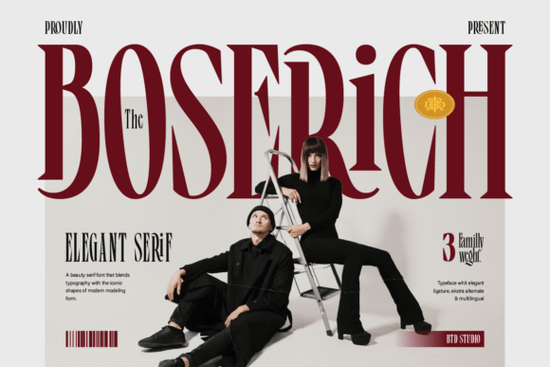
If you are working on a project that needs a touch of high-end elegance, the Boserich Font is a typeface worth exploring. This modern serif was created to bring a luxurious, editorial feel to your work. Whether you are designing a beauty brand logo, laying out a fashion magazine, or creating wedding invitations, this font gives your text a sophisticated personality without sacrificing readability.
What makes this serif typeface stand out for luxury branding?
When you are building a brand identity for a beauty, skincare, or fashion line, the small details matter. This typeface blends a classic serif structure with stylish, modern touches inspired by contemporary fashion aesthetics. The high contrast strokes and refined curves create a strong visual presence on the page or screen. You will also notice distinctive ligatures and unique character shapes, particularly in letters like A, g, and R. These subtle design choices add a custom, hand-crafted feel to your text, helping your brand stand out in a crowded market.
How many weights and styles are included in the package?
What specific projects work best with this high-fashion typography?
Because of its editorial inspiration, this font shines in projects that require a premium, polished aesthetic. It is highly effective for physical products, print-on-demand items, and digital media alike. Here are the most common ways designers, crafters, and small business owners use it:
- Fashion branding and luxury logos: The elegant curves give a high-end feel to clothing labels and tags.
- Magazine layouts and editorial spreads: Perfect for large, impactful headlines that draw the reader in.
- Beauty and skincare packaging: Creates a clean, expensive look for product bottles and boxes.
- Wedding invitations and event stationery: Adds a touch of romance and formality to printed paper goods.
- Instagram and social media graphics: Helps quotes and announcements look professional and on-brand.
What characters and technical features are included?
A good typeface needs to be functional across different languages and specific design needs. The download provides a complete A to Z set in both uppercase and lowercase, along with a full range of numbers and punctuation. It also includes multilingual support, making it a reliable choice for international brands and diverse customer bases. You also get access to stylistic alternates and a detailed character map. This map helps you easily find and insert the specific glyphs, swashes, or ligatures you need to customize your lettering.
Quick tips for using editorial serif fonts in your layouts
- Pair with simplicity: Balance the detailed, high-contrast serif with a clean, minimal sans-serif for your body text to maintain readability.
- Use generous spacing: Elegant fonts look best when given plenty of white space to breathe, especially in logo design.
- Explore the alternates: Always check the character map for unique ligatures that can make a header or monogram look completely custom.
- Mind your print sizes: The thin strokes are beautiful but can disappear if printed too small on physical products.